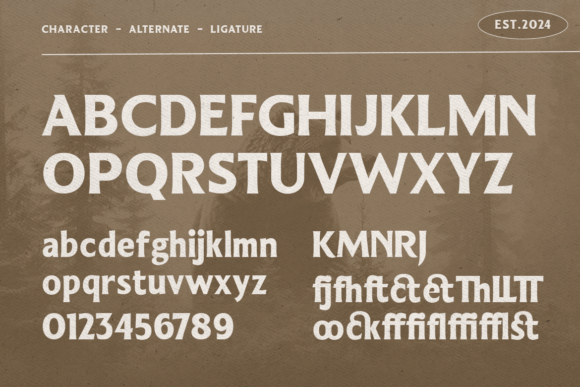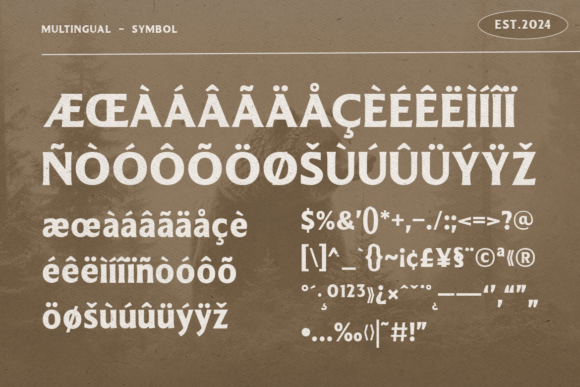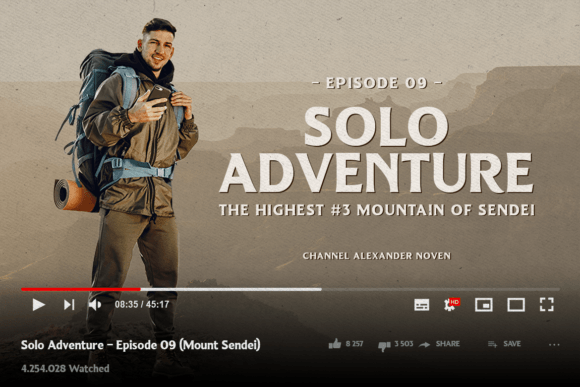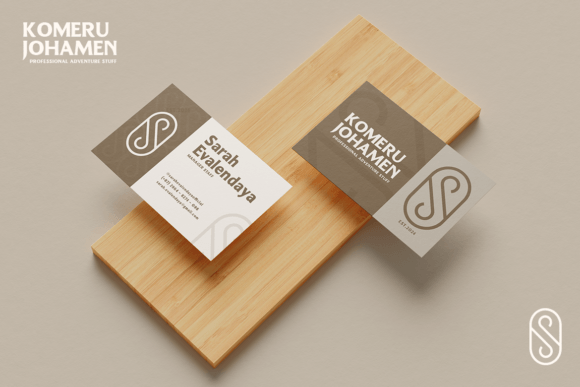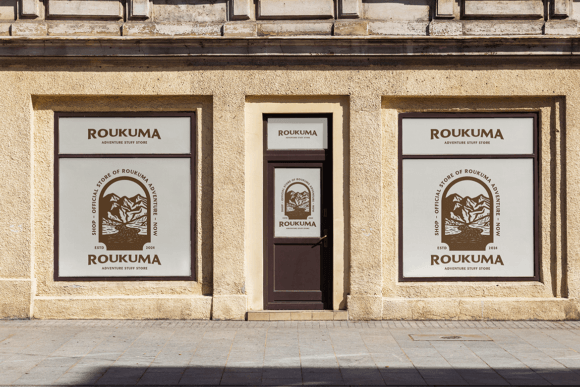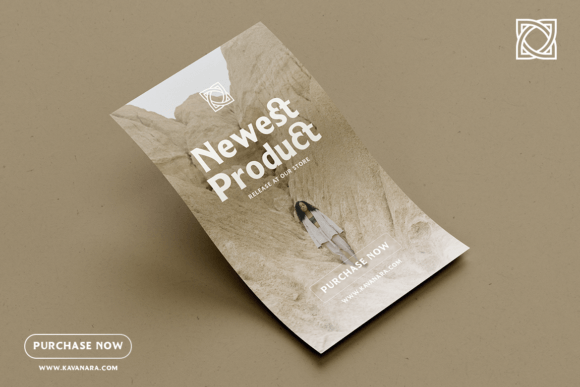
The Designer’s Dilemma: Finding Solace in Griezly Font
I recall a particularly frustrating design moment when I was working on a branding project for a cozy coffee shop. The client wanted a font that exuded warmth, approachability, and a touch of modern sophistication. I scoured the internet, tried out countless fonts, but nothing seemed to strike the perfect balance. That was until I stumbled upon Griezly, a humanist serif typeface that has since become my go-to for projects requiring a blend of elegance and friendliness.
A Personal Review of Griezly Font
What I Love About Griezly ✨
- ✅ Perfect balance of readability and character: Griezly’s sleek curves and open letterforms make it a joy to read, even at small sizes.
- ✅ Versatility across platforms: Whether I’m designing for print or digital, Griezly adapts seamlessly, ensuring my designs look great everywhere.
- ✅ Warm and inviting feel: Griezly’s humanist touch adds a layer of approachability to any design, making it perfect for brands that want to feel friendly and welcoming.
- ✅ Modern and professional essence: Despite its warm feel, Griezly doesn’t compromise on modernity, making it suitable for a wide range of projects, from corporate communication to editorial design.
While Griezly is an exceptional font, there are a few minor considerations to keep in mind:
- 🤔 Limited availability of extended language support: While Griezly covers a broad range of languages, it might not support every language or script.
The Story Behind Griezly
Griezly was designed with the goal of creating a typeface that embodies both warmth and precision. Inspired by the humanist serif fonts of the past, its designer aimed to craft a font that would feel approachable and modern. Through careful attention to detail and a passion for typography, Griezly was born — a font that seeks to bridge the gap between classic elegance and contemporary design needs.
Q: What makes Griezly suitable for corporate communication?
A: Griezly’s modern yet approachable feel makes it an excellent choice for corporate communication. It conveys professionalism while also being warm and inviting.
Q: Can I use Griezly for both print and digital projects?
A: Absolutely! Griezly is designed to be versatile, performing well in both print and digital environments.
Q: Does Griezly support OpenType features?
A: Yes, Griezly comes with a range of OpenType features, including stylistic alternates and ligatures, which can enhance your typography.
Q: Is Griezly easy to read?
A: Yes, one of Griezly’s standout features is its excellent readability, even at smaller sizes, making it suitable for a wide range of applications.